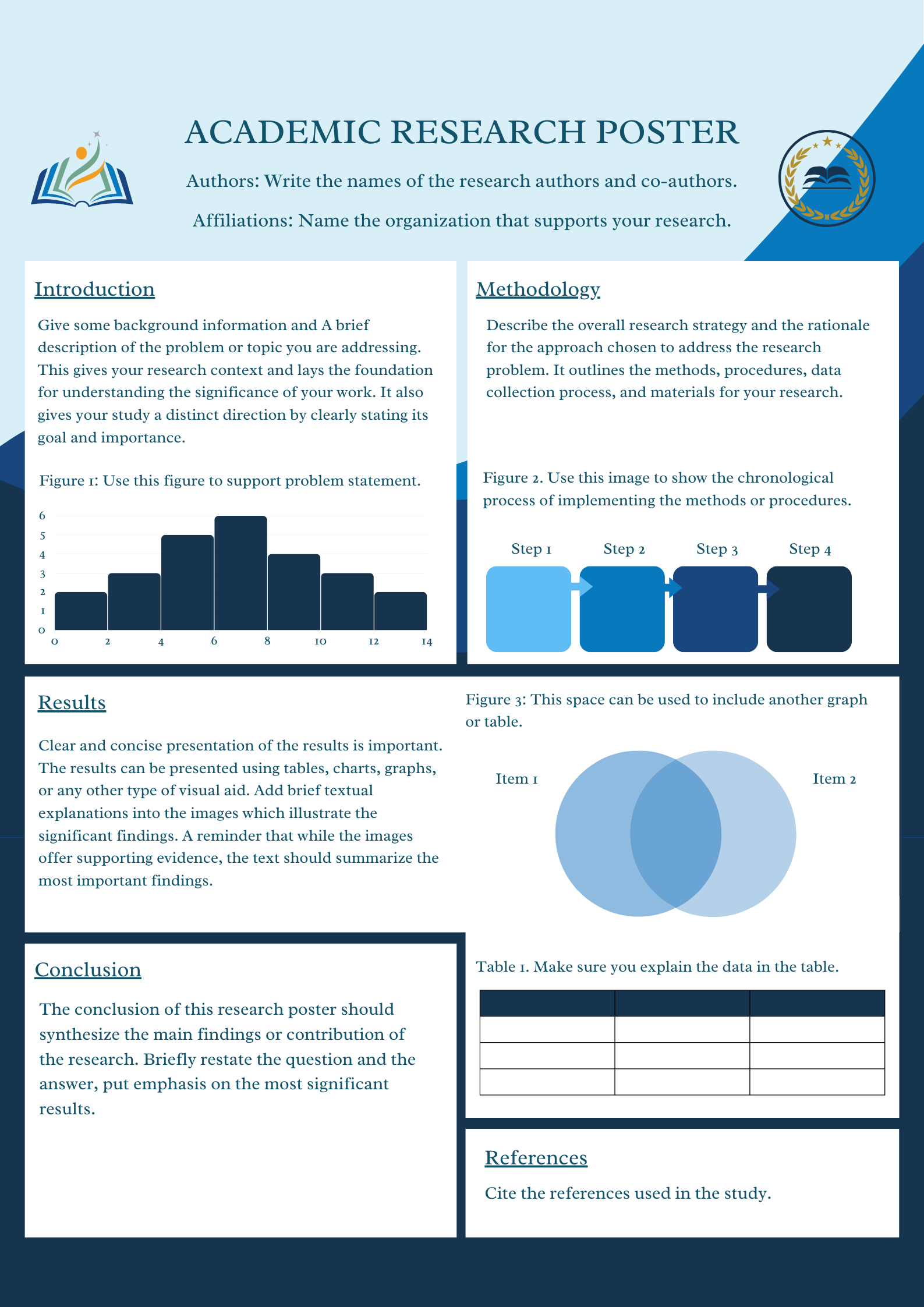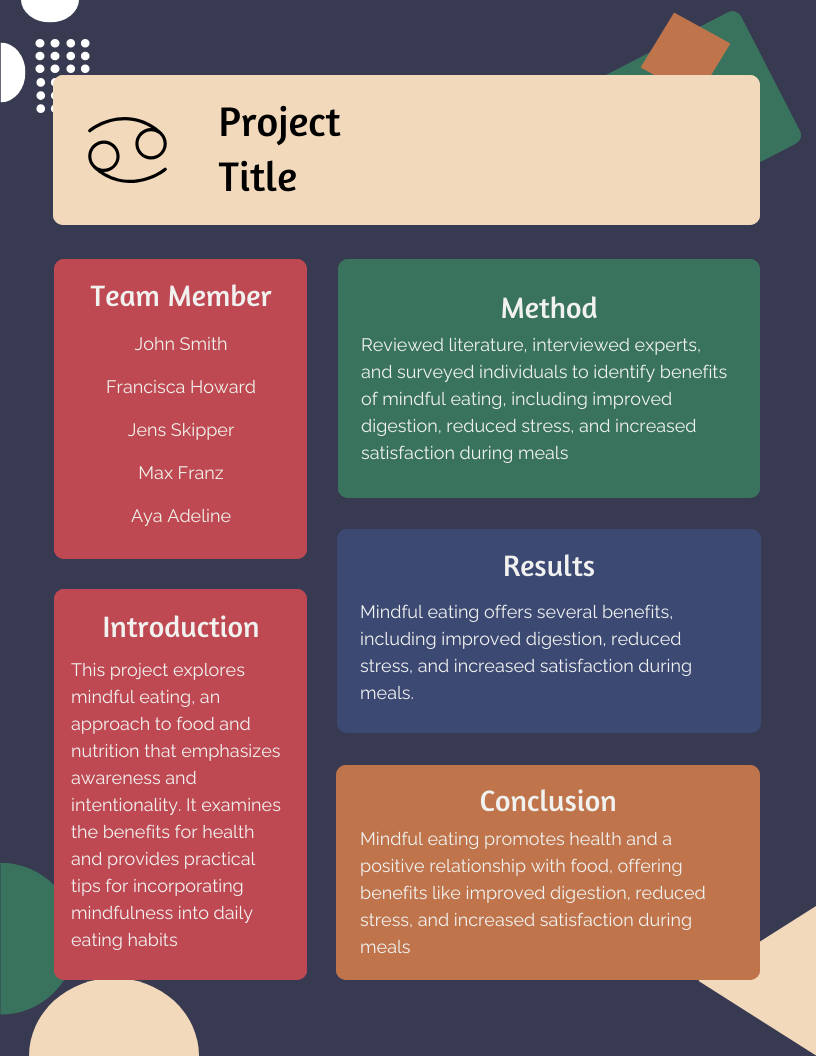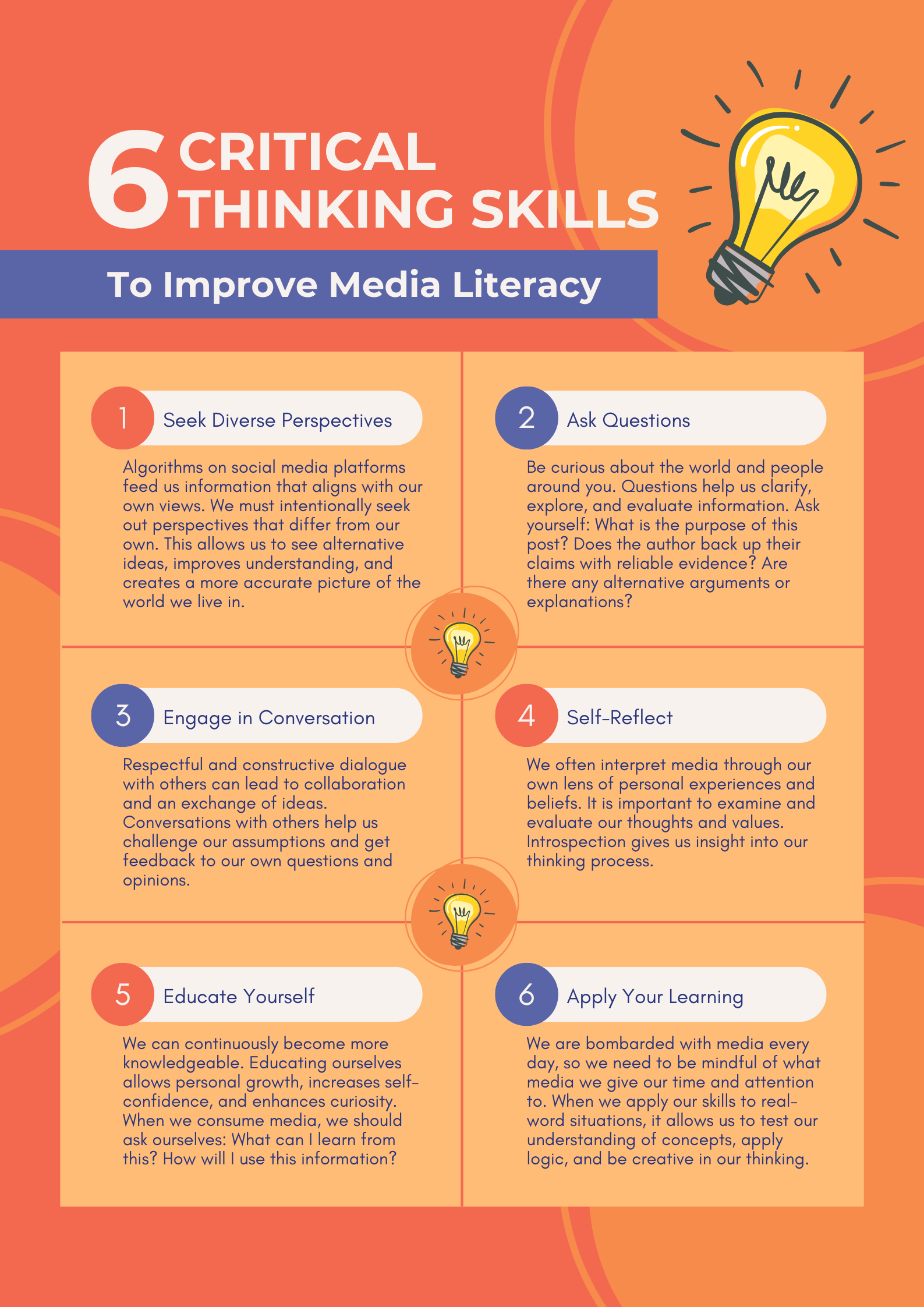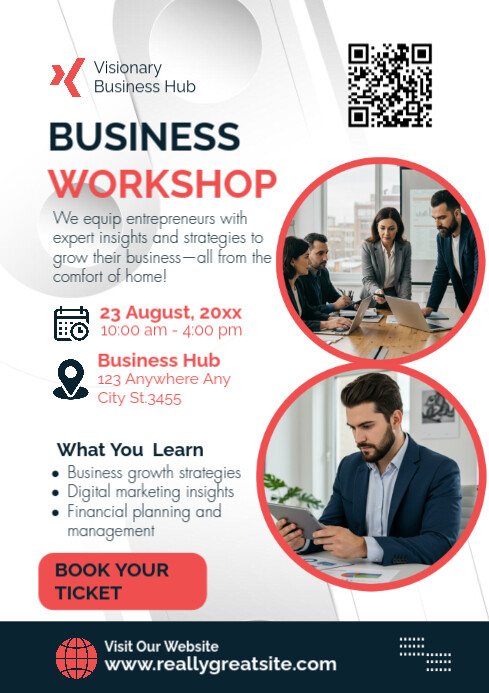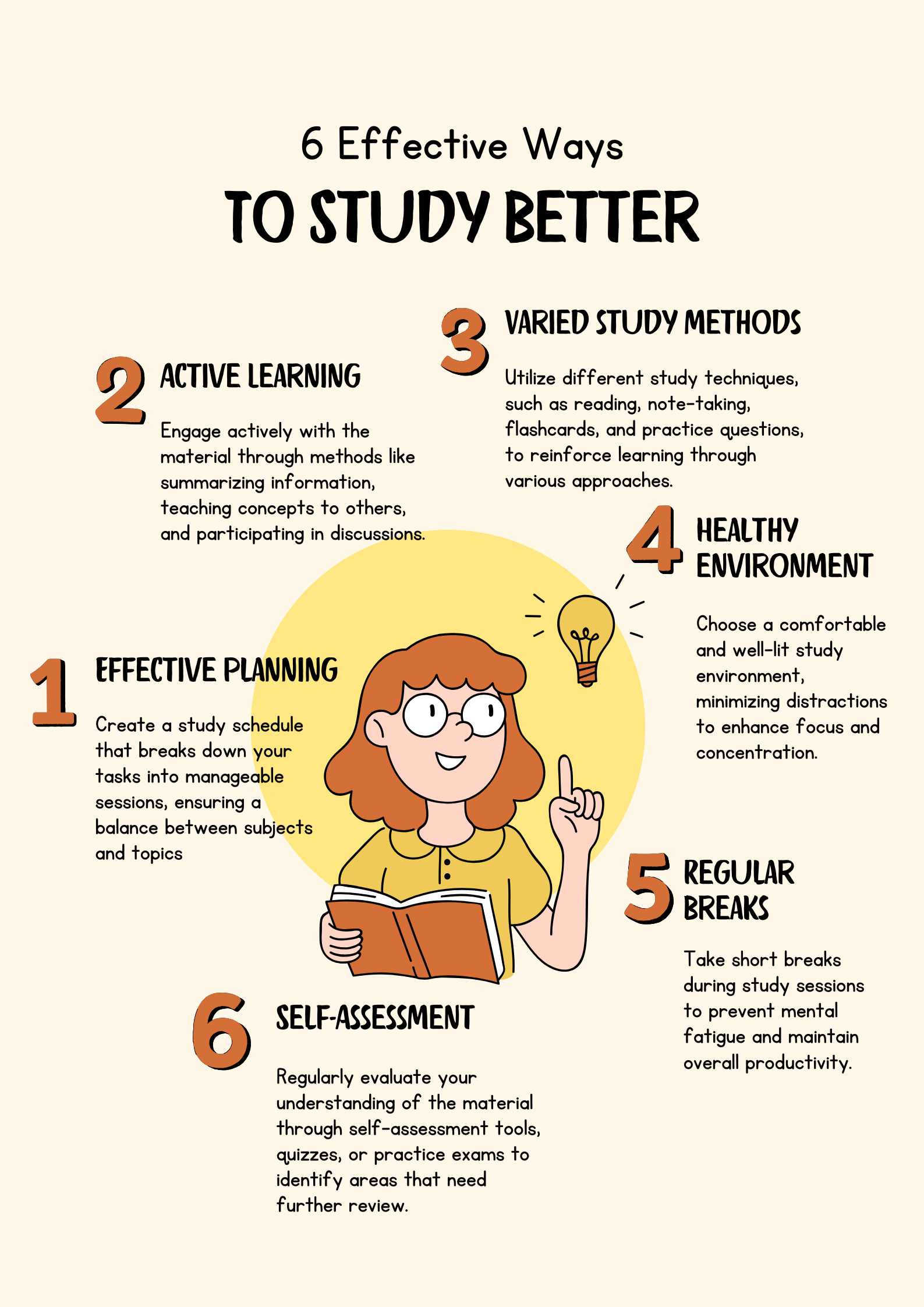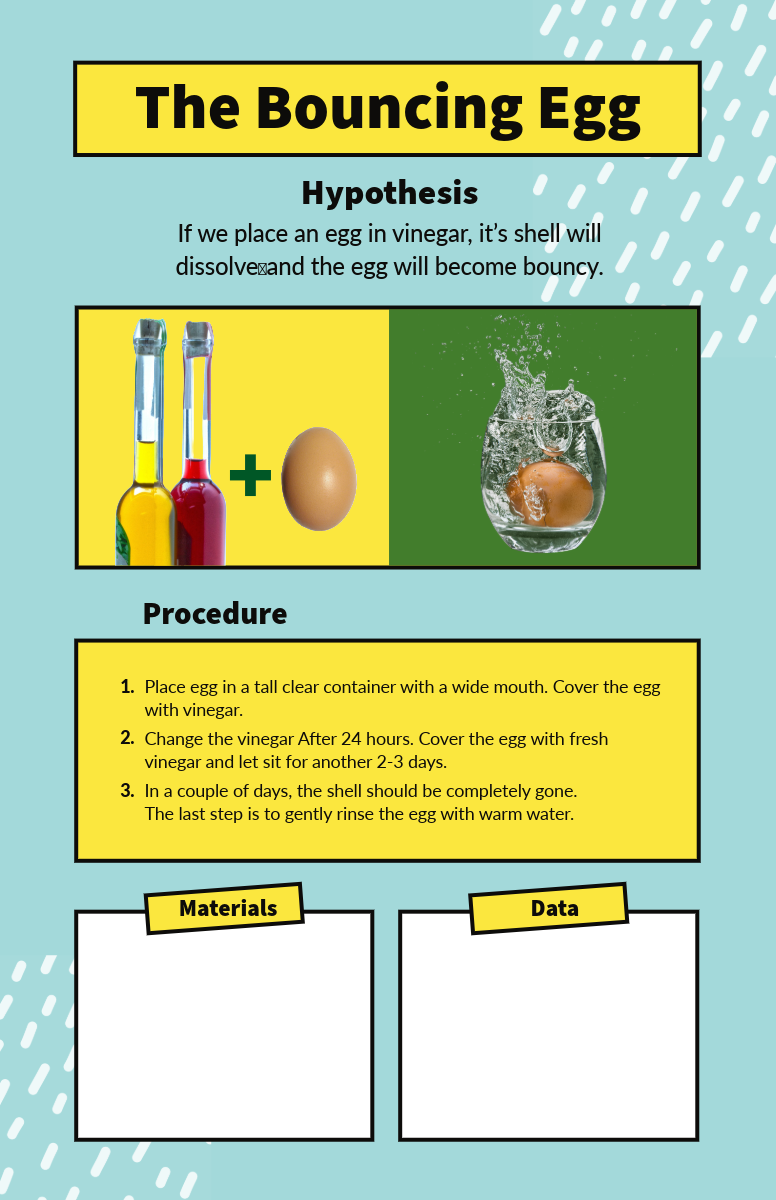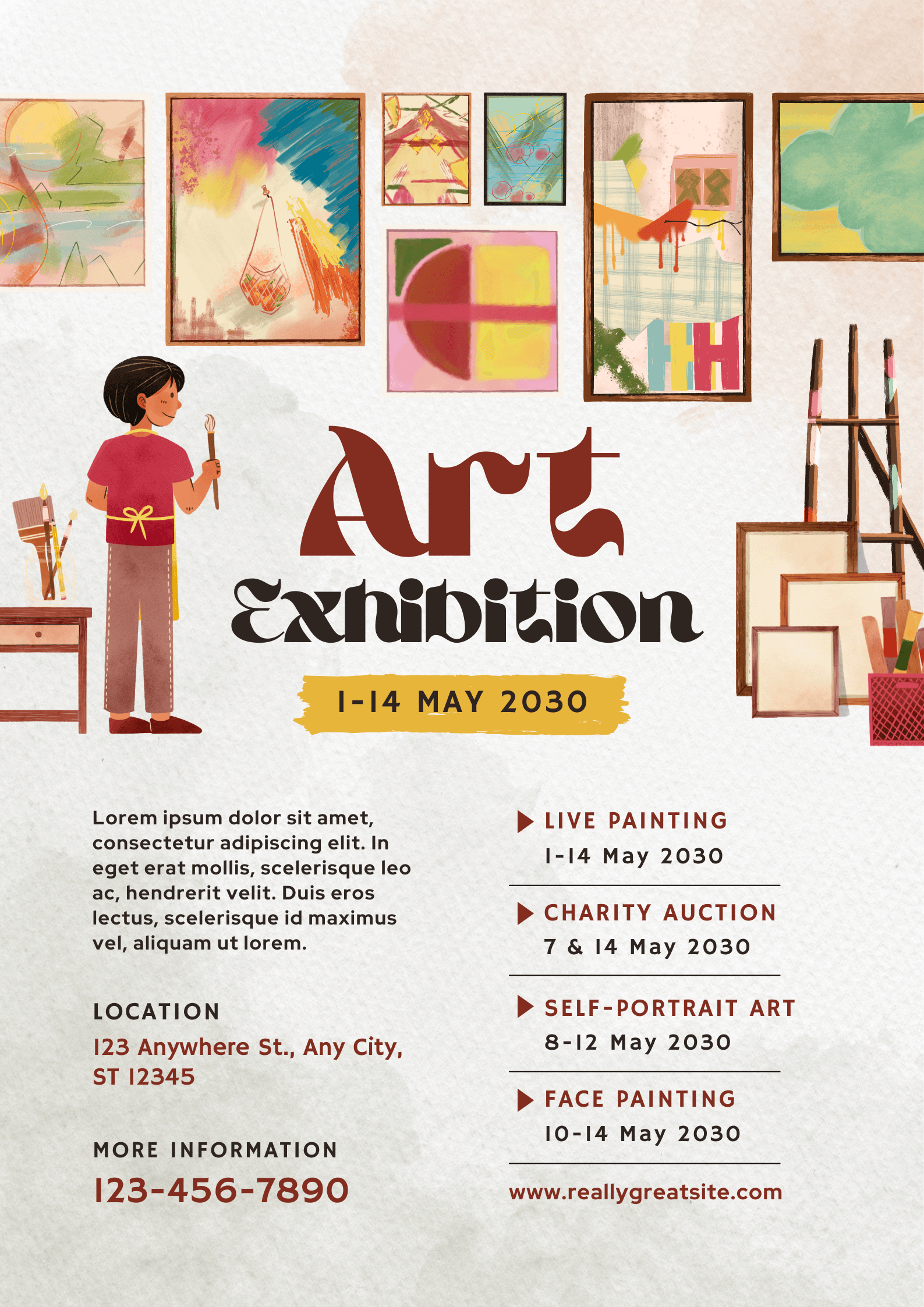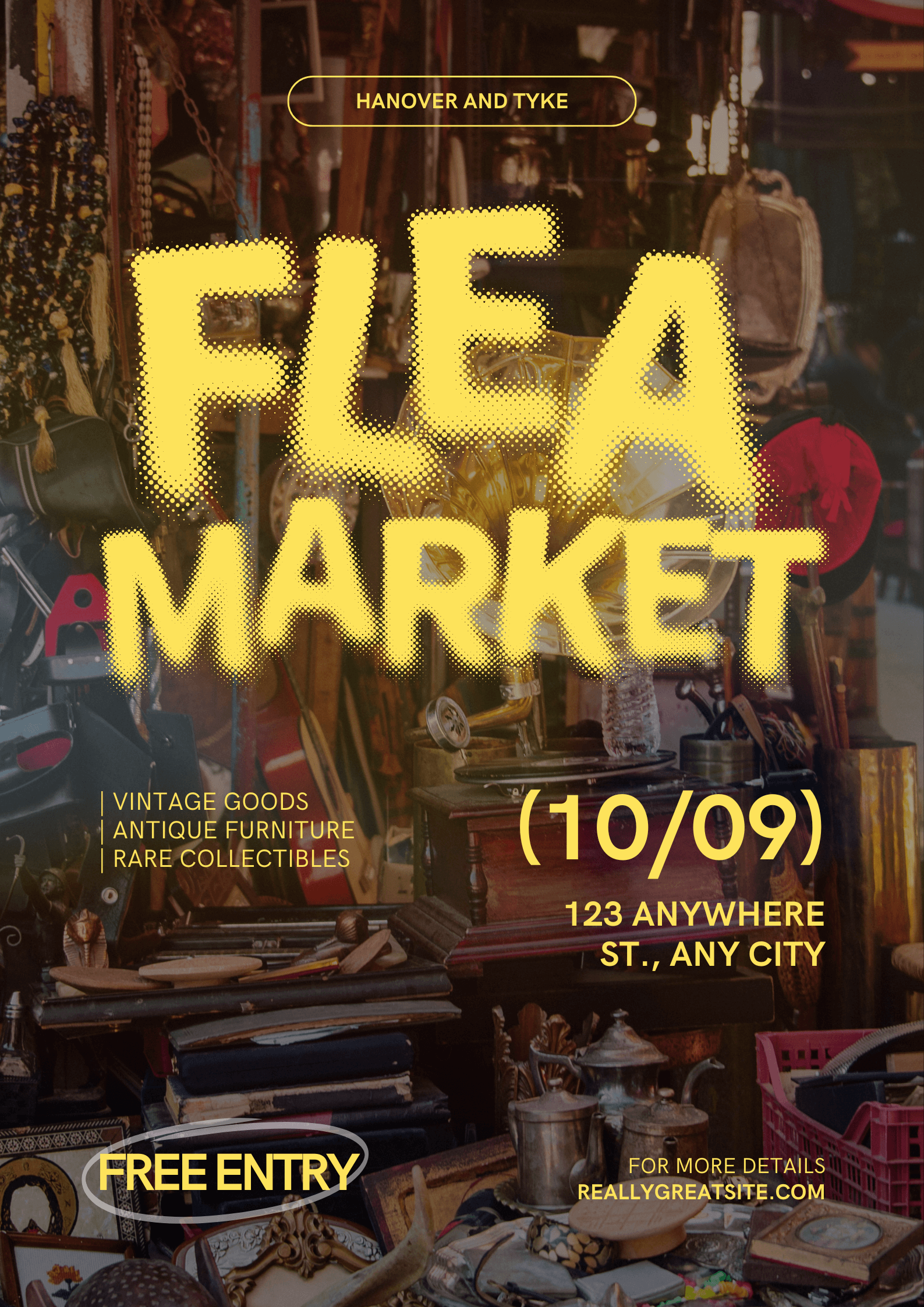
10 Poster Board Design Ideas That Capture Attention
Poster Board Design Ideas
Designing a poster is a crucial task, as it requires presenting all the necessary information in a single visual without overwhelming the viewer. That’s why we’ve gathered practical tips and inspiring poster board design ideas to help you broaden your perspective and elevate your design to the next level.
Key takeaways
• Combine visuals and text thoughtfully to create a poster that is clear, visually appealing, and easy to follow.
• Highlight key information using font sizes, colors, and strategic layout choices to guide the viewer’s attention naturally.
• Select colors, typography, and other design elements that align with your theme and resonate with your intended audience.
Tips for Making the Best Design for a Poster Board
According to research, a good scientific poster should capture the viewer’s interest and imagination, encouraging them to learn more about the topic. Follow these tips to engage your audience and deliver your information clearly and effectively.
1. Align the Text and Graphics
A strong poster strikes a balance between imagery and typography, ensuring the background visuals support the text rather than compete with it. Placing typography thoughtfully can add depth and naturally guide the viewer’s eye throughout the design.
2. Establish Visual Hierarchy
Because the human eye can only process limited information at once, it’s important to establish a clear hierarchy when designing your poster. Rank each element’s importance, then use varied fonts, callouts, and design accents to emphasize key details while keeping secondary content subtle.
3. Organizing Information
To design an impactful poster board, arrange information clearly using a logical structure. For example, scientific posters typically follow a common format, including sections like Introduction, Materials/Methods, Results, Conclusions, Literature Cited, Acknowledgements, and Further Information.
Planning your layout beforehand ensures a coherent flow that effectively guides viewers through your research.
4. Using Vibrant and Attention-Grabbing Colors
Color is a powerful element in poster design. Bright tones bring energy, muted shades add elegance, and gradients create depth. Try using complementary colors to create striking contrast or a monochromatic scheme for a modern look. However, always choose hues that reflect your message and brand.
5. Play with Layering
Layering colored shapes and design elements adds depth, creating a subtle 3D effect that enriches the visual dimension of posters. In Canva, you can easily arrange elements forward, backward, or to the front and back for dynamic layouts.
Top 10 Poster Board Design Ideas to Inspire You
Finding the right design for your needs can be challenging, as it must align with your theme and brief. That’s why we’ve curated 10 creative poster board designs to help you discover the perfect style for your project.
1. Poster Board Research
This poster template is created for academic and research presentations, offering a clean and professional layout with subtle design accents. The blue-and-white palette ensures high text contrast, enhancing readability and making it an excellent choice for a research poster board.
2. Poster Board Project
Designed to “make your project exceptional”, this template excels at capturing attention and communicating essential project details in a creative and visually engaging manner.
3. Poster Board Presentation
Presentation Poster | Image Source: Canva
This poster is an example of a well-structured poster board presentation that uses bold orange, blue, and white tones with a lined layout. Its clear sections and concise tips make complex ideas easy to follow and visually engaging.
4. Poster Board Business
Poster Board Business | Image Source: Poster My Wall
With a clean white background, bold typography, and subtle geometric details, this poster template presents a modern design and is perfect for creating professional and impactful business posters.
5. Poster Board Education
Education Poster | Image Source: Canva
The illustrated layout of this educational poster, highlighted with bold yellow and red accents, presents study tips in easy-to-digest sections, which is perfect inspiration for poster board design ideas.
6. Poster Board Event
This poster shines with its vibrant, retro-inspired illustrations and dynamic color palette, perfectly capturing the energy and fun of a lively event.